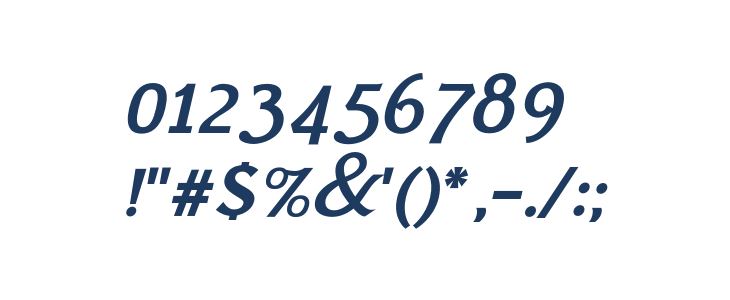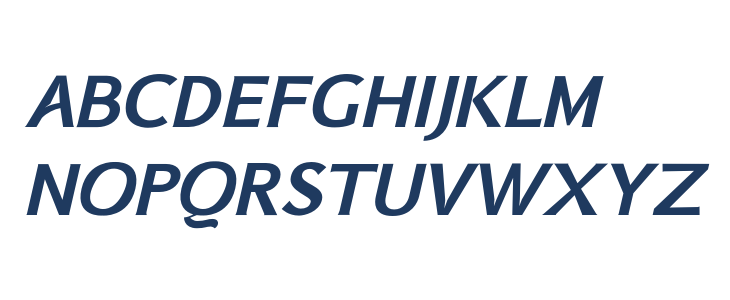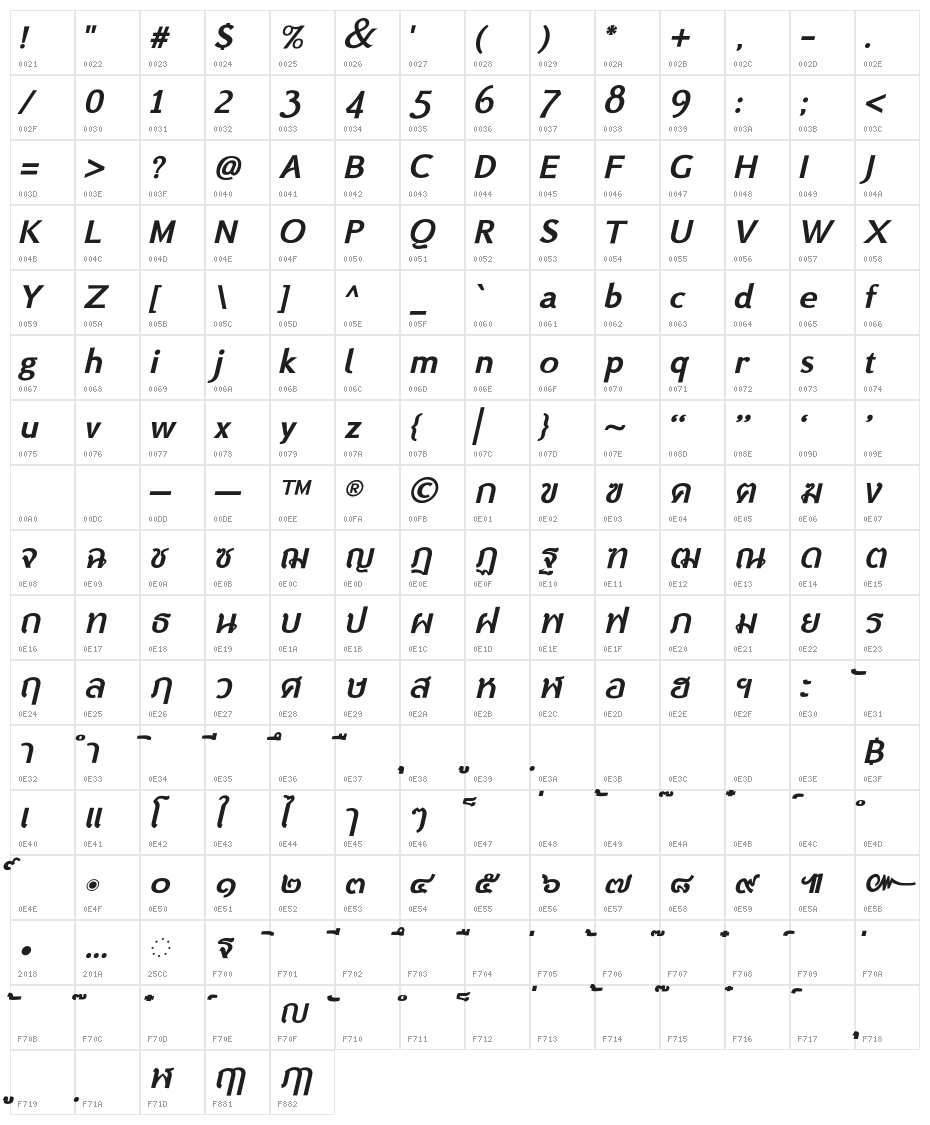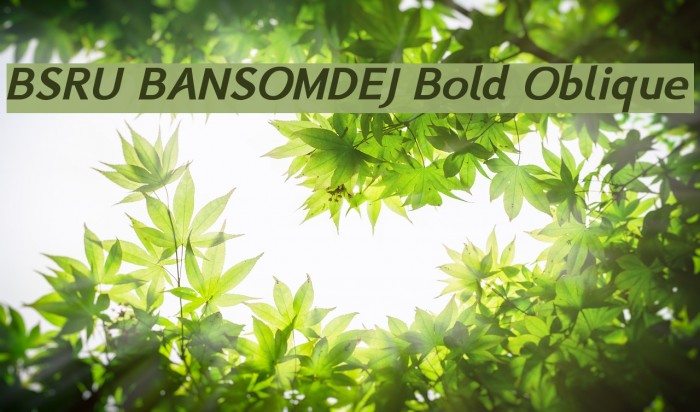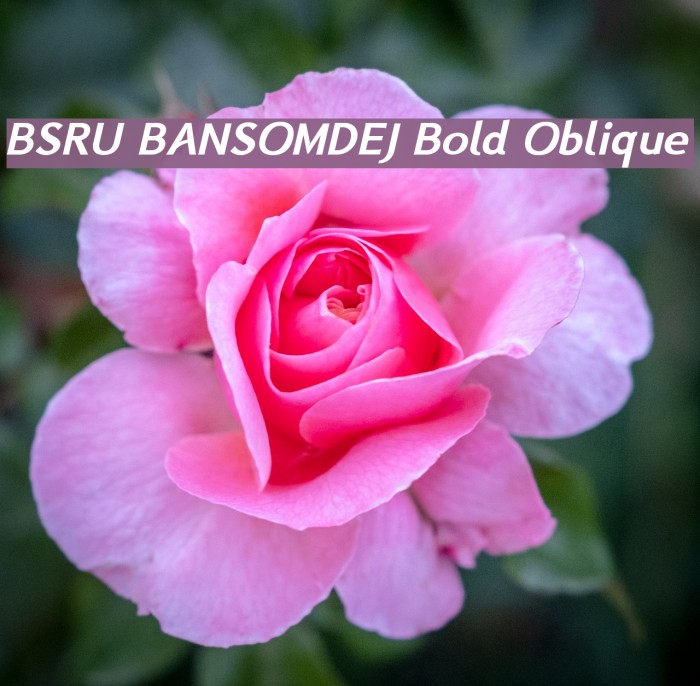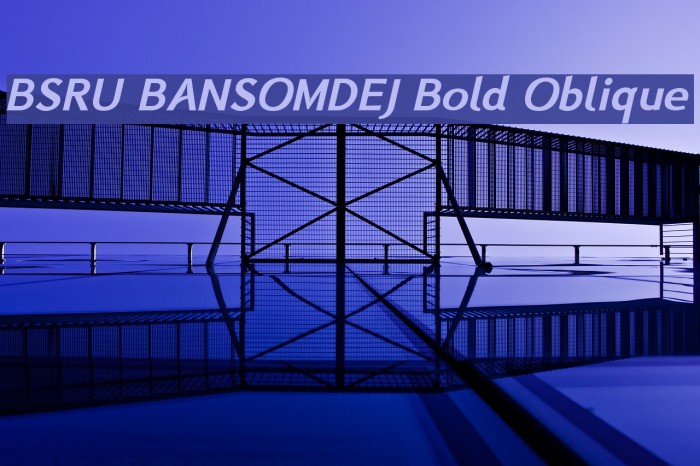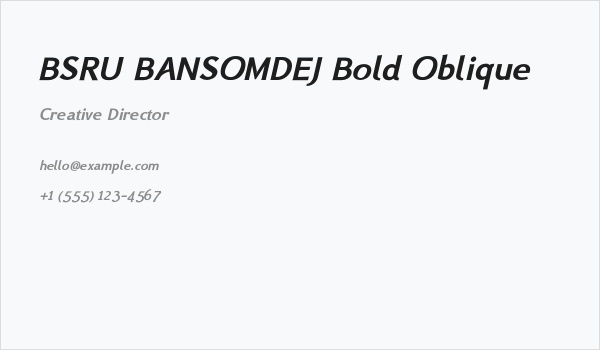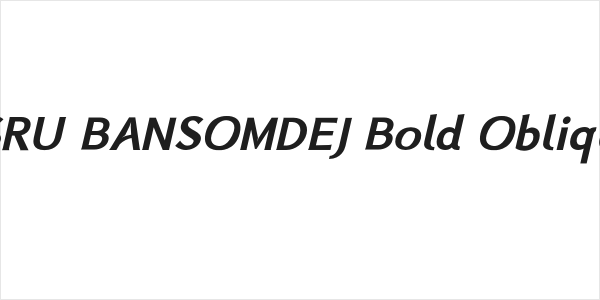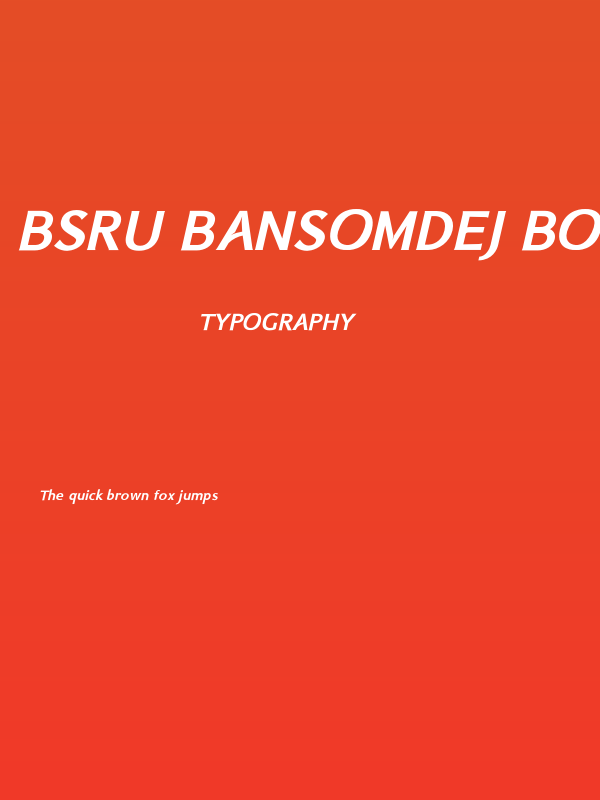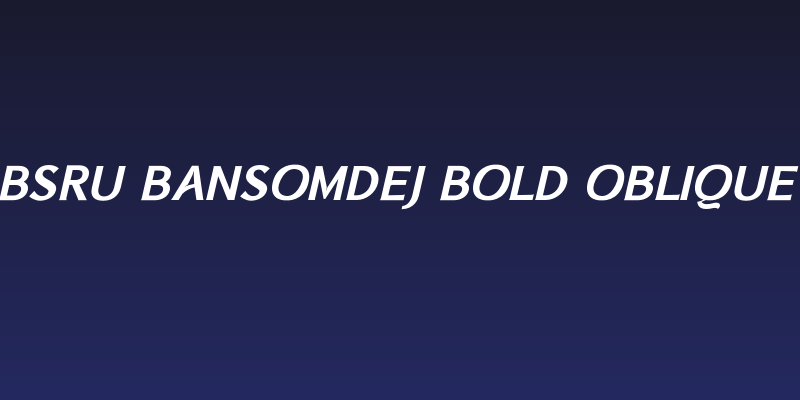
BSRU BANSOMDEJ Bold Oblique Font
BSRU BANSOMDEJ Bold Oblique Description
This font features a bold and oblique style, offering a dynamic and modern appearance. The characters are slightly slanted, providing a sense of movement and energy. The bold weight ensures strong visibility, making it suitable for impactful headlines and titles. The font maintains a clean and professional look, with smooth curves and consistent stroke widths. The spacing between characters is normal, allowing for easy readability. Its versatility makes it ideal for various design projects, from branding to advertising.